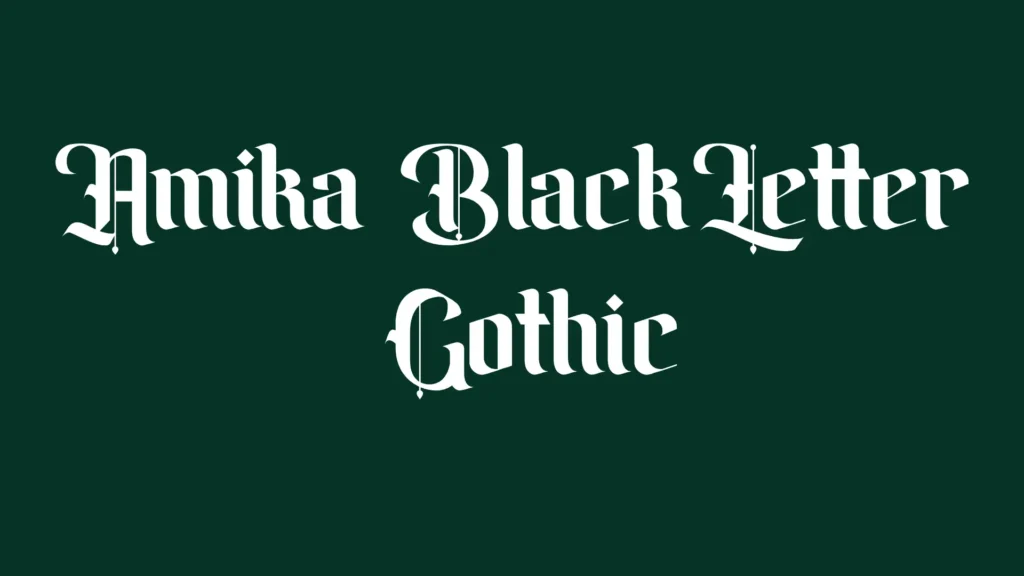
Amika Blackletter is a stylized, handmade Modern Victorian display font designed by Gilang Maulana and released through Maulana Creative in June 2020. It explicitly bridges early 1800s classic old-world aesthetics with contemporary design sensibilities.
Amika Blackletter Font Preview
Amika Blackletter
Amika Blackletter Character Map
Amika Blackletter is a medieval font made by Maulana creative (2020).